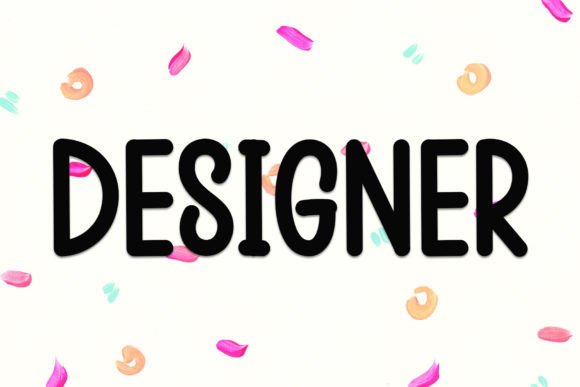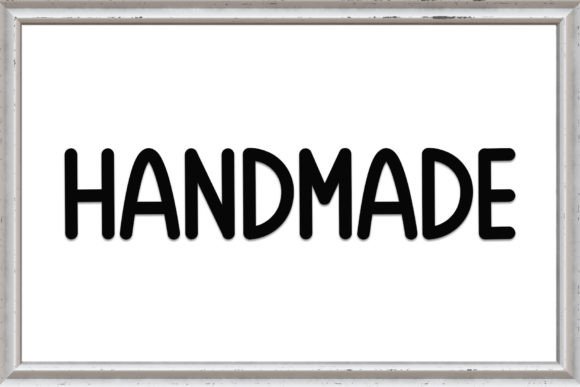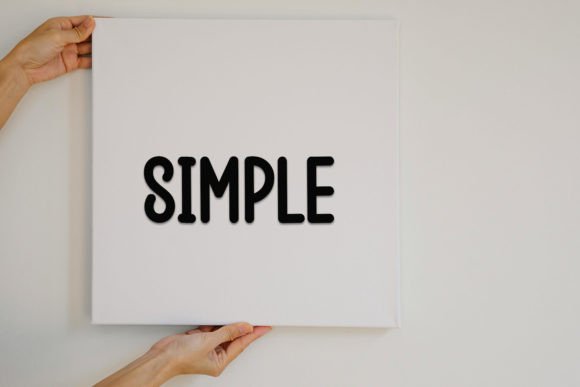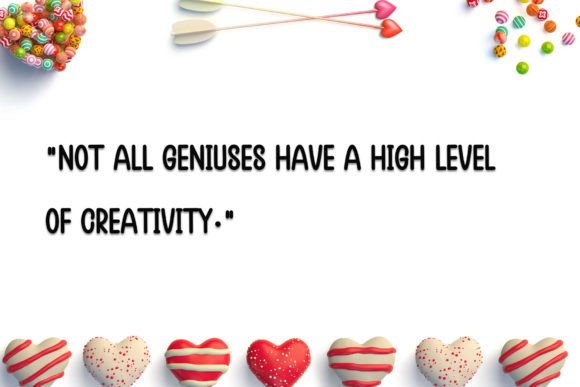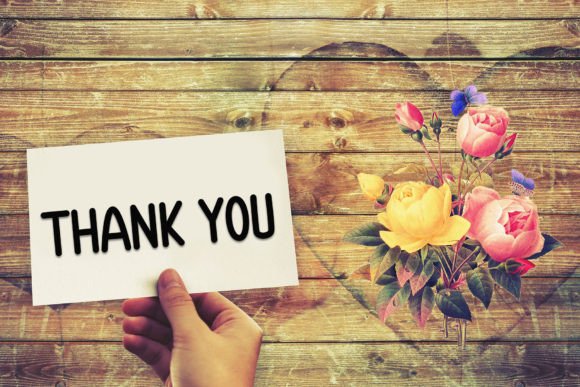
Introduction to Hello Highland Font
As a designer, have you ever been stuck on the perfect font for a creative project? Maybe you’ve spent hours scrolling through design resources, searching for that one font that will elevate your design and make it truly stand out. I know I have.
But then, one day, I stumbled upon the Hello Highland Font. Its bold, clean letters immediately caught my eye, and I knew I had found my new go-to font. Whether you’re creating titles, signs, or posters, the Hello Highland Font is the perfect choice for making your designs easy to read and eye-catching.
Key Features of Hello Highland Font
- Features a unique, modern design with a touch of Scottish charm
- Includes a range of characters, including uppercase and lowercase letters, numbers, and punctuation marks
- Perfect for graphic designers, artists, and anyone looking for a distinctive design element for their creative project
Honest Review: Hello Highland Font
As a designer, I’m always on the lookout for high-quality design resources to elevate my creative projects. The Hello Highland Font is a great addition to my collection, offering a unique and charming aesthetic.
What works well with this font is its versatility. It’s perfect for a variety of design projects, from digital products to print materials. The font’s high quality and transparent background make it easy to work with, allowing for seamless integration into any design.
I particularly enjoy the Hello Highland Font’s ability to add a touch of whimsy and personality to my designs. Its friendly and approachable feel makes it perfect for branding, marketing materials, and other creative projects.
What I Like:
- ✨ High-quality design with a unique aesthetic
- ✨ Versatile and suitable for various design projects
- ✨ Easy to work with due to transparent background
- ⚠️ Limited character set, may not be suitable for long-form text
- ⚠️ May require additional font styling to achieve desired look
Overall, I’m impressed with the Hello Highland Font and would highly recommend it to designers looking for a unique and high-quality design resource. With its versatility and ease of use, it’s a great addition to any design arsenal.
Hello Highland Font
Designing with Hello Highland Font
Tips for Getting the Most Out of Hello Highland Font
For optimal results, use Hello Highland Font with a transparent background to create a clean and modern design. Experiment with different font sizes and styles to achieve the desired look.
Common Use Cases for Hello Highland Font
Hello Highland Font is ideal for various creative projects, including:
- Typography-based designs
- Branding materials